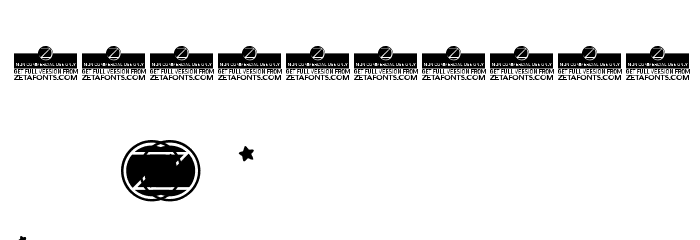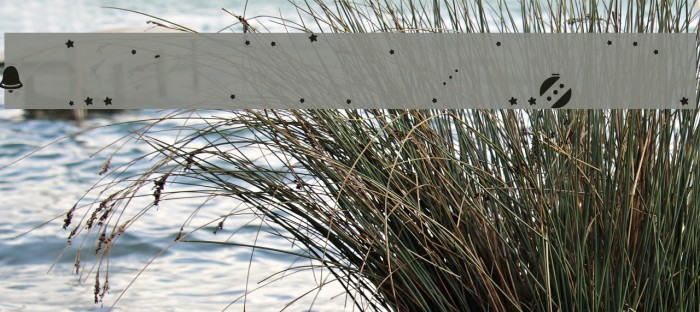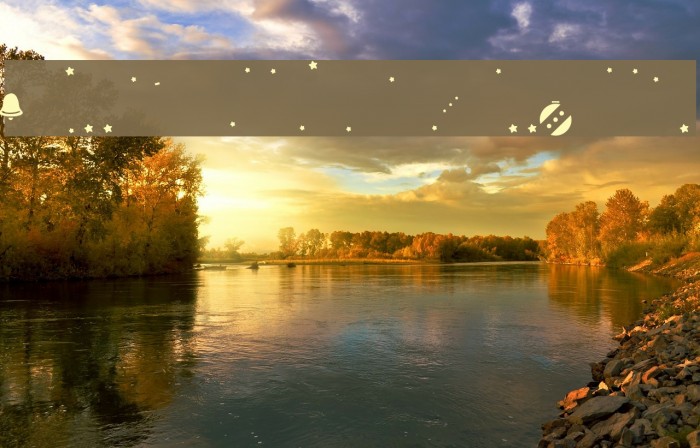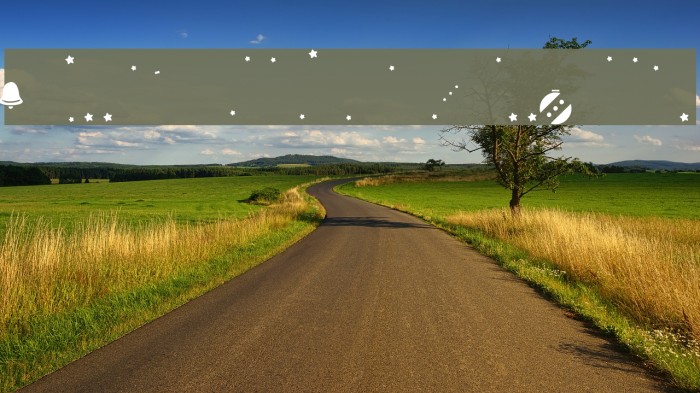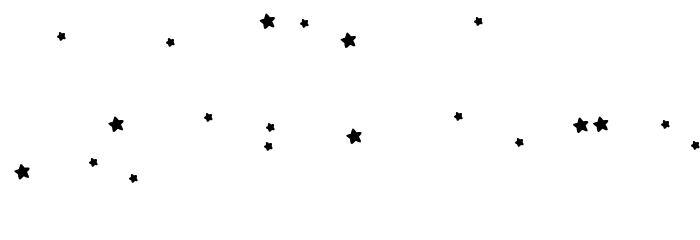
HelloChristmasFillTrial Font
HelloChristmasFillTrial Description
This font is a decorative collection of Christmas-themed icons and symbols. It features a variety of festive elements such as Christmas trees, bows, Santa hats, gifts, bells, stockings, and ornaments. The design is playful and whimsical, capturing the joyful spirit of the holiday season. Each character is represented by a unique icon, making it ideal for adding a festive touch to any project. The icons are bold and easily recognizable, perfect for creating holiday cards, decorations, or themed graphics.
A decorative font featuring Christmas-themed icons and symbols from Uncategorized fonts.
- Proposed Projects: Ideal for holiday cards, festive decorations, themed graphics, and Christmas event promotions.
- Use Case: Logos, Headlines